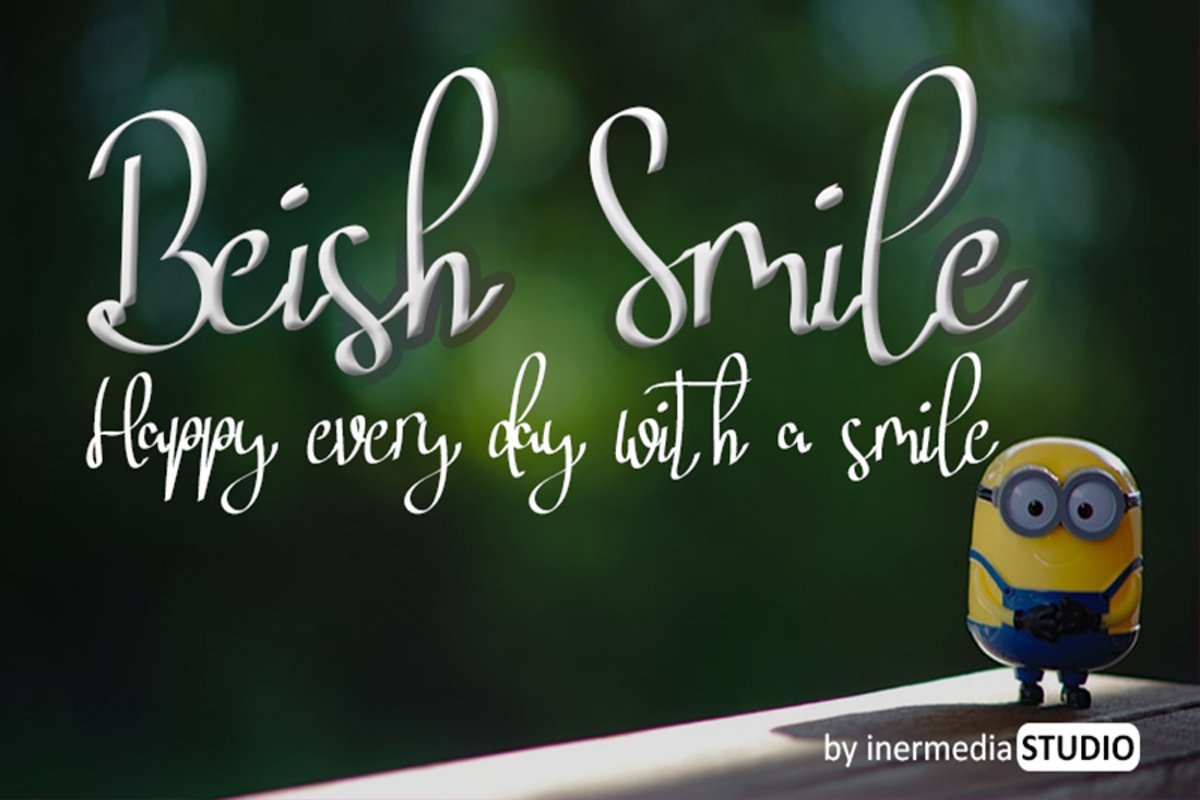
Beish Smile
Beish Smile embodies fun, quirkiness and authenticity. This unique handwritten font will turn any creative idea into a true standout.
+More than 100+ Glyphs
+PUA-Encoded for many alternates and ligatures